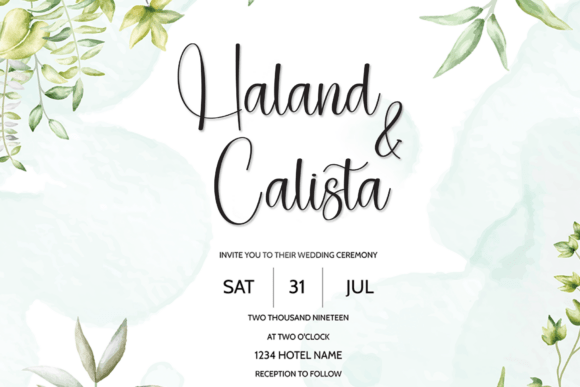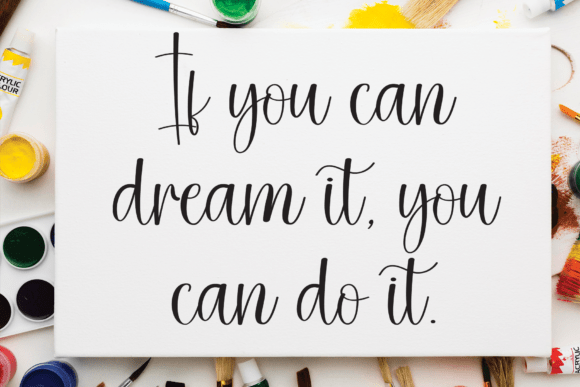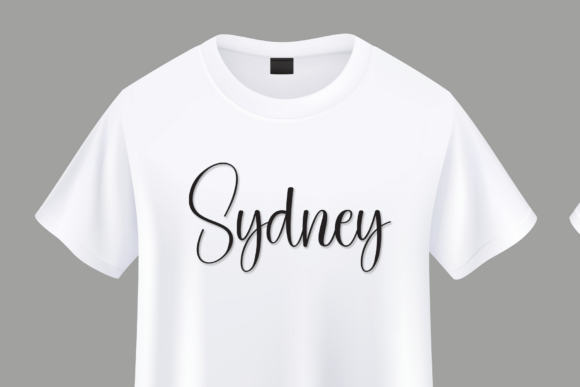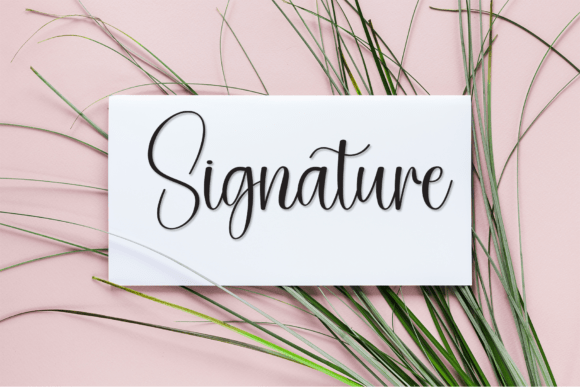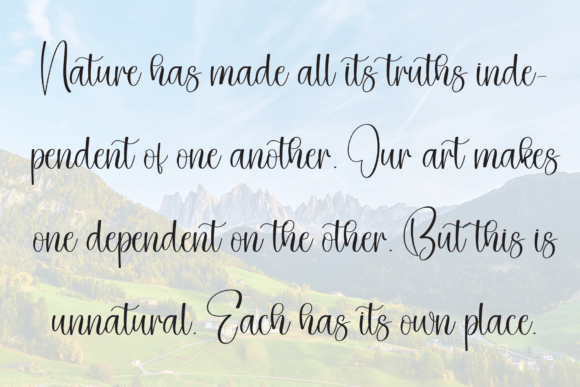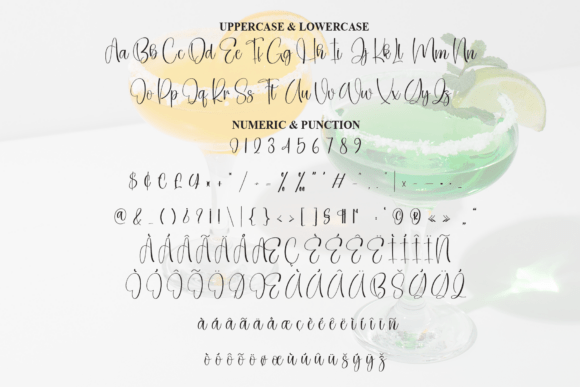
A Perfect Blend of Style and Sophistication
Imagine yourself sipping on a classic cocktail, surrounded by the warm glow of a dimly lit lounge. The sound of jazz music fills the air, and the bartender’s skilled hands move with precision as they craft your drink. In this moment, you’re not just enjoying a drink – you’re experiencing a sense of luxury and relaxation.
Cocktails Font captures the essence of this experience, transporting your audience to a world of sophistication and leisure. This modern handwritten font is designed to evoke the atmosphere of an upscale lounge, with relaxed, rhythmic strokes and graceful, overlapping swashes that add a touch of elegance to any design. Whether you’re creating a restaurant menu, event flyer, or hospitality branding, Cocktails Font is the perfect companion to help you craft a memorable experience.
Cocktails Font Key Features
- Font Family: A unique, hand-drawn design with a vintage feel, perfect for creating a sophisticated and elegant atmosphere.
- Unique Characteristics: Features a range of stylistic sets, including swashes, ligatures, and alternates, allowing designers to add a touch of personality to their work.
Cocktails Font Review
Overall, I think the Cocktails Font is a fun and stylish addition to any project. ✨ It’s perfect for bars, restaurants, or any other establishment that wants to give off a lively and vibrant atmosphere. The font’s playful curves and dynamic letterforms make it stand out in a crowd.
- Unique and eye-catching design that’s perfect for attracting attention.
- Great for creating a sense of excitement and energy.
- Comes in a range of weights and styles, making it easy to customize to your needs.
- ⚠️ Not ideal for body text, as it can be a bit overwhelming in large quantities.
- ⚠️ May not be the best choice for formal or professional projects.
- ⚠️ Some users may find the font a bit too flashy or attention-seeking.
Overall, I think the Cocktails Font is a great choice for projects that want to make a statement. While it may not be the best fit for every project, it’s certainly a unique and memorable option. If you’re looking to add some excitement to your design, I’d definitely consider giving it a try.
For the most effective use of Cocktails Font, consider the following tips:
- Use the font for titles and headings to add a touch of elegance.
- Pair the font with bold and bright colors to create a visually appealing design.
- Experiment with different font sizes and styles to add depth and interest to your design.
Common use cases for Cocktails Font include:
- Restaurant and bar menus
- Food and drink branding
- Special event invitations and signage
Alternatives to “Cocktails Font” for Designers
Alex Brush is a elegant and refined script font perfect for designers who want to add a touch of sophistication to their projects. It’s ideal for use in invitations, wedding designs, and other creative projects where a beautiful handwritten feel is desired.
Compared to Cocktails Font, Alex Brush has a more refined and polished look, making it suitable for more formal projects. It’s also more versatile and can be used in a wider range of contexts.
Great Vibes is a modern and stylish script font that’s perfect for designers who want to add a fun and energetic feel to their projects. It’s ideal for use in branding, advertising, and other creative projects where a bold and eye-catching look is desired.
Compared to Cocktails Font, Great Vibes has a more modern and edgy look, making it suitable for projects that require a bold and attention-grabbing feel. It’s also more versatile and can be used in a wider range of contexts.